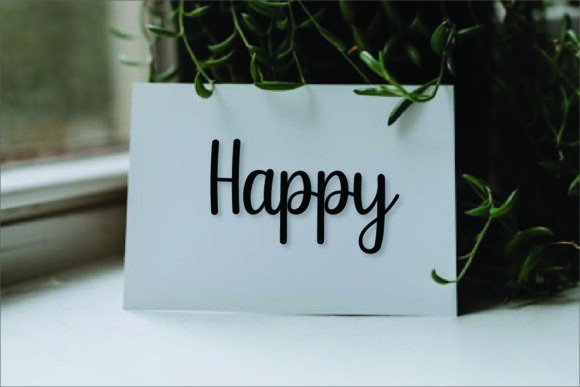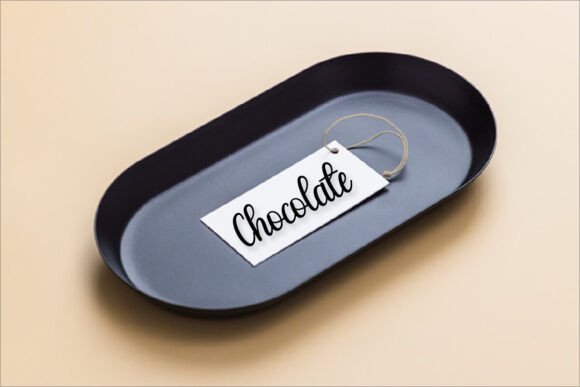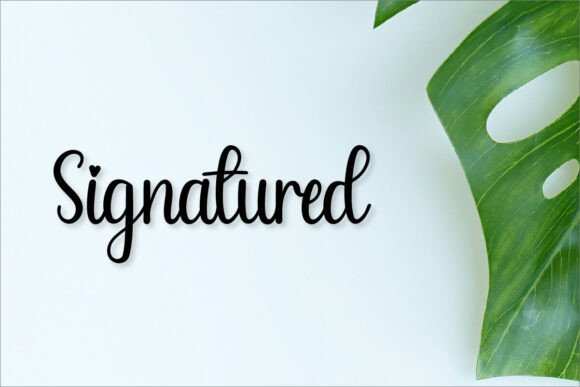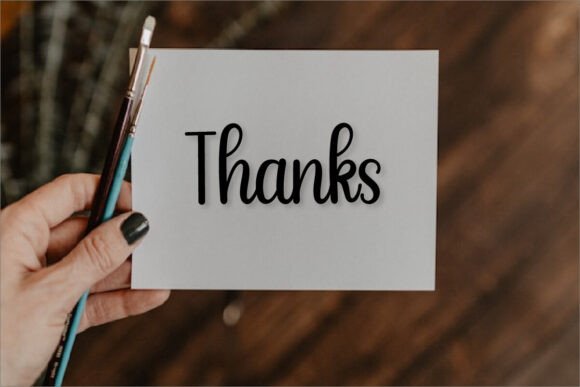
Introduction to Impresso Font
Impresso is an elegant and flowing handwritten font.
It maintains a classy calligraphic influence while feeling contemporary and fresh Fall in love with this font and take your projects to the highest level.
Key Features of Impresso Font
Why Choose Impresso Font?